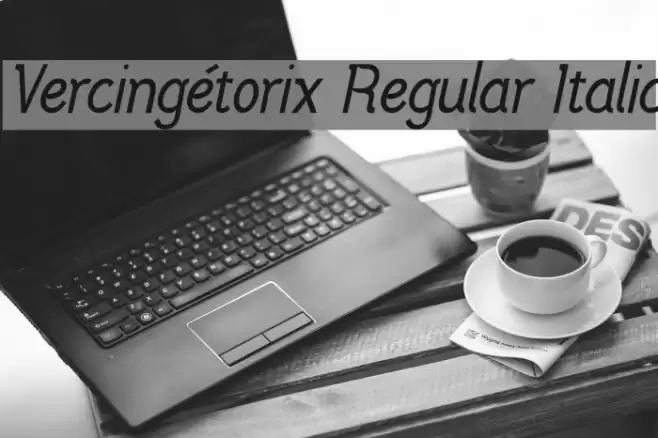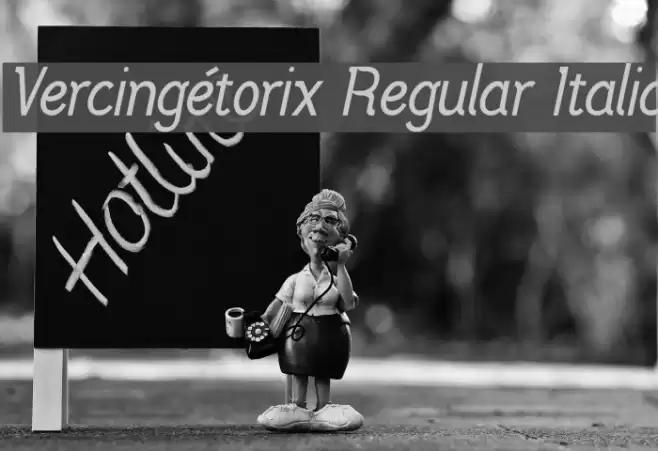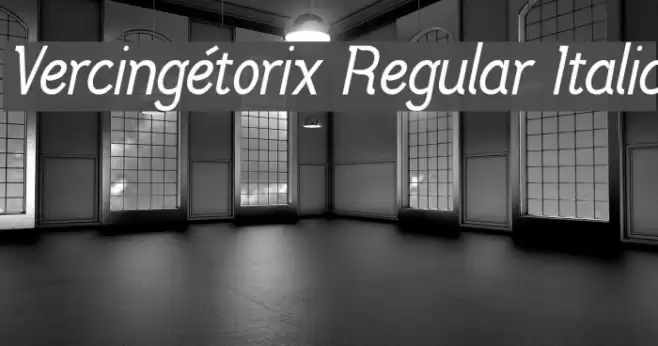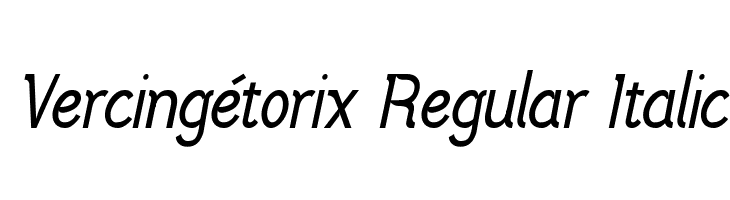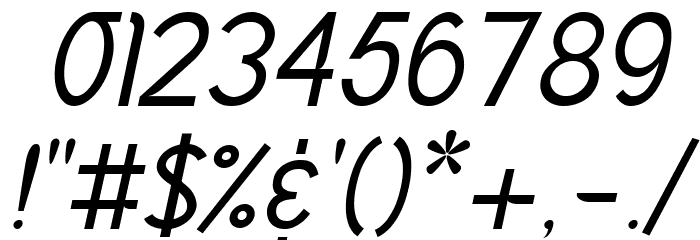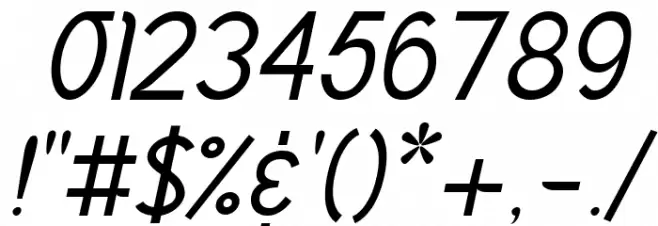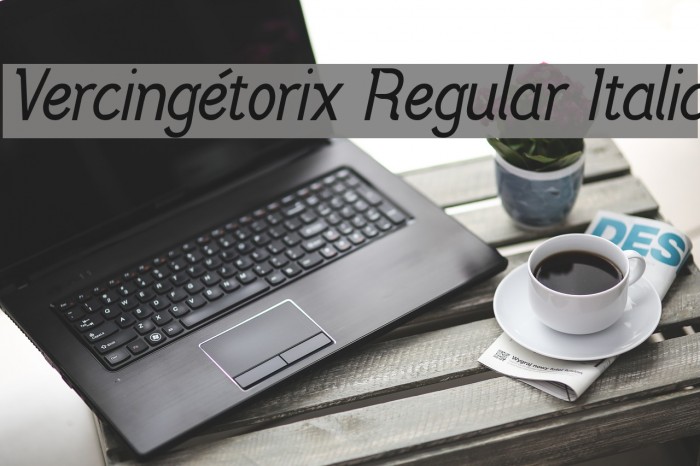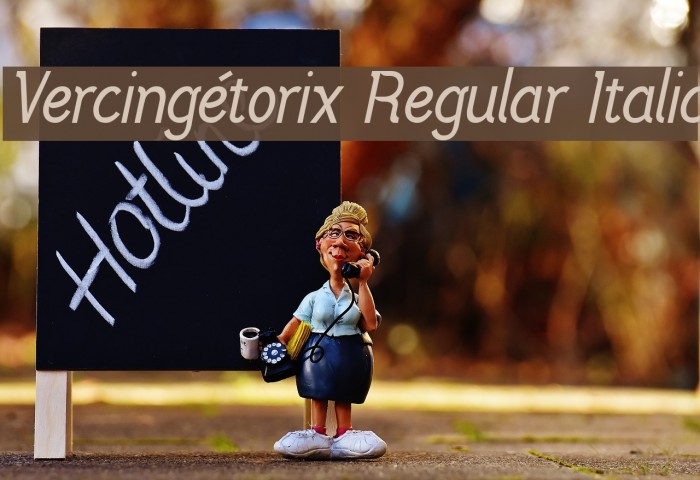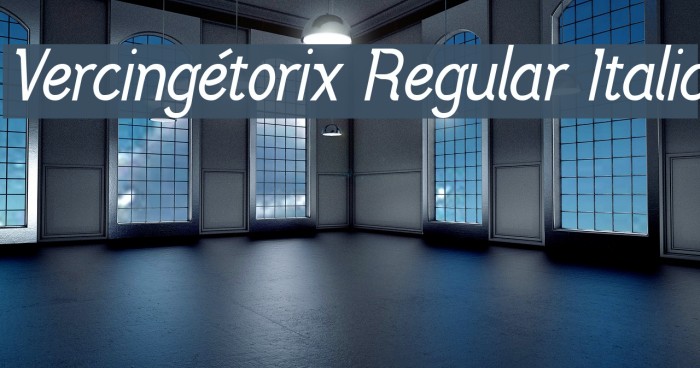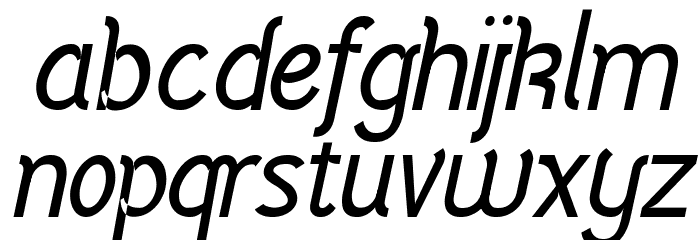
Vercingétorix Regular Italic Font
Vercingétorix Regular Italic Description
This font exhibits a dynamic and fluid style, characterized by its italicized form and smooth, flowing lines. The characters are slightly slanted, giving a sense of motion and elegance. The uppercase letters are tall and commanding, while the lowercase letters maintain a consistent rhythm and balance. The numerals are clear and distinct, matching the overall aesthetic of the alphabet. Special characters are well-integrated, maintaining the font's cohesive look. The font's design is both modern and timeless, making it versatile for various applications.
A dynamic italic font with smooth, flowing lines and a modern aesthetic from Uncategorized fonts.
- Proposed Projects: Ideal for branding, editorial design, and advertising where a touch of elegance and modernity is desired.